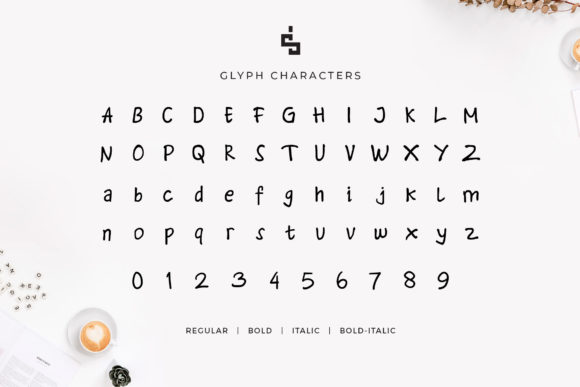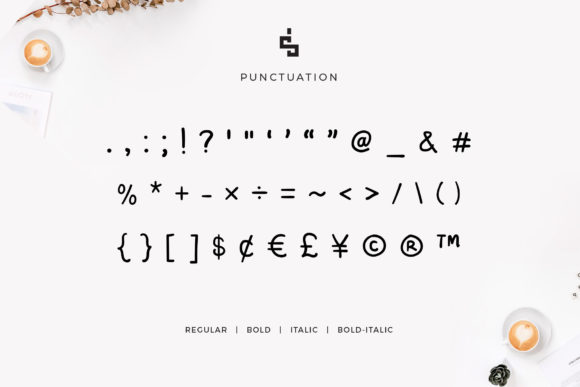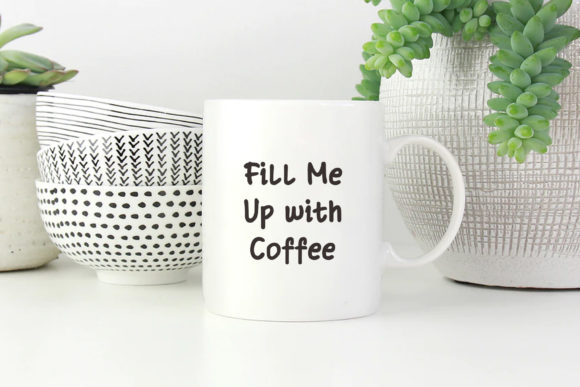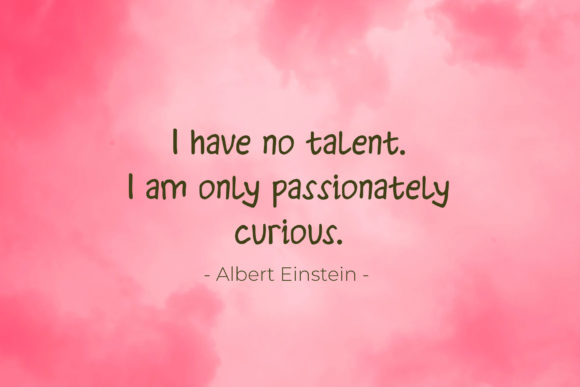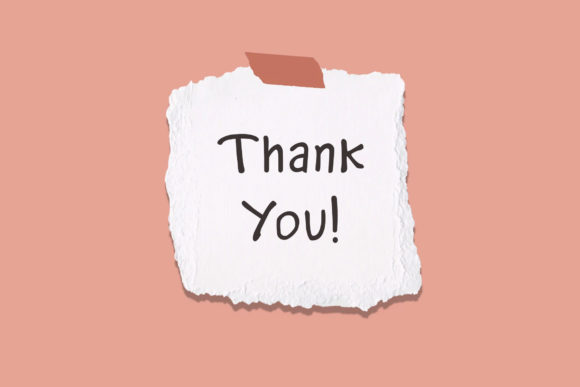
The Sweet Charm of Gravaree Font: A Designer’s Delight
I’ll never forget the moment I stumbled upon Gravaree Font while working on a whimsical craft project for a client. I was on a tight deadline, and my design was feeling flat and lifeless. I had a vision of a warm, friendly, and playful font that would bring my project to life, but I just couldn’t find the right one. That’s when I discovered Gravaree, and it was love at first sight! 💕
Gravaree is a sweet and friendly handwritten font that has become an indispensable part of my design toolkit. Its natural and unique style makes it incredibly fitting for a wide range of designs, from crafty projects to elegant branding materials. The only limit is your imagination!
- ✅ Unique and friendly handmade feel
- ✅ Supports OpenType features, glyphs, and stylistic alternates
- ✅ Perfect for a wide range of design projects, from crafts to branding
- ⚠️ Some letters may appear a bit narrow or wide, depending on the word
- ⚠️ May not be the best fit for very formal or corporate designs
The Story Behind Gravaree: A Designer’s Inspiration
Gravaree was created by a talented font designer who wanted to craft a unique, handmade font that would bring warmth and personality to designs. Inspired by traditional handwriting and lettering, Gravaree is the result of careful attention to detail and a passion for typography.
Q: What makes Gravaree so special?
A: Gravaree’s unique, handmade feel and highly legible design make it perfect for a wide range of projects.
Q: Is Gravaree difficult to read?
A: No, Gravaree is highly legible, even at small sizes, making it perfect for body text and headings.
Q: Can I use Gravaree with OpenType features?
A: Yes, Gravaree supports OpenType features, glyphs, and stylistic alternates, giving you more creative control.